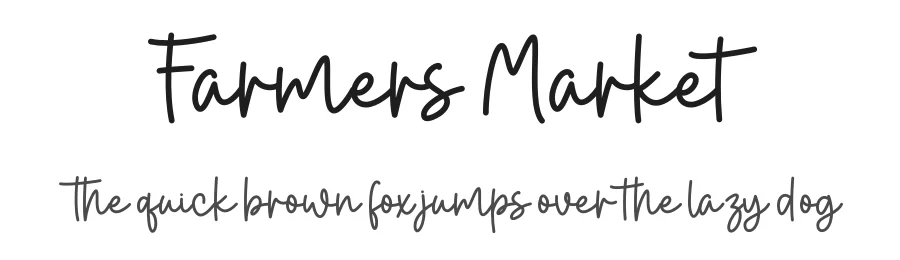
About Kind Friend Font
| Designer | Letterative Studio |
Kind Friend Font is a script font that shines as a display or heading face. Pair it with a clean sans-serif or serif font for body text β the contrast creates a clear hierarchy while the two styles stay balanced and easy to read.